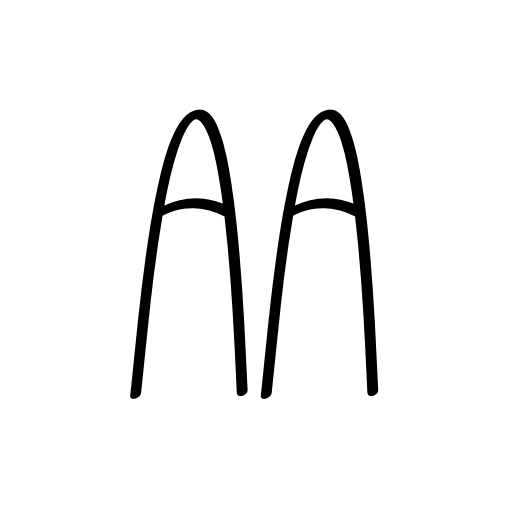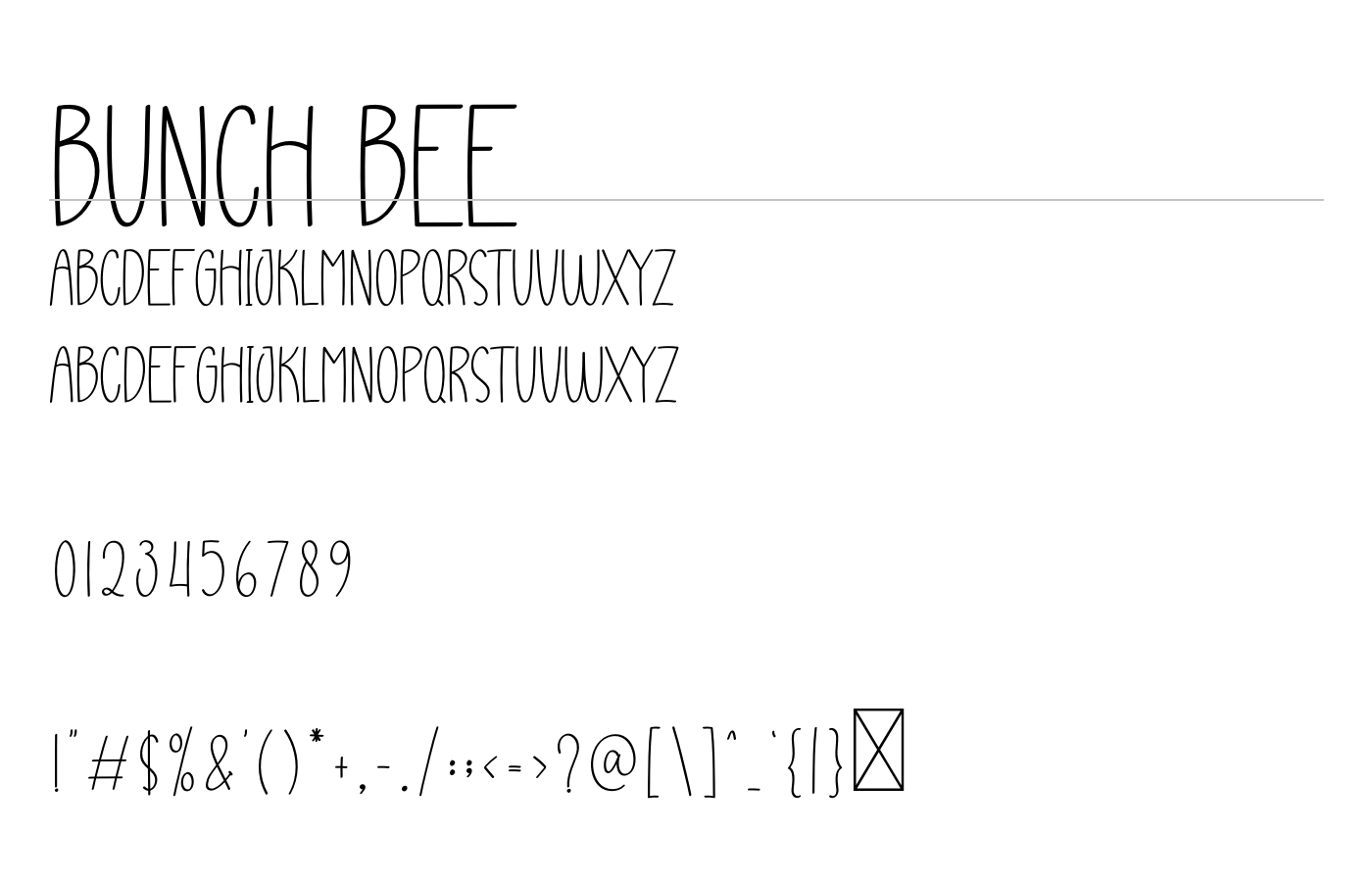
Bunch Bee is a slender, playful sans serif font featuring tall, narrow letterforms with uneven stroke widths that give it a hand-drawn, casual feel. Its quirky and elongated shapes make it ideal for informal, creative designs like kids' materials, posters, and friendly branding, bringing a touch of whimsy and charm without sacrificing readability. This font adds a lighthearted and approachable personality to any project that seeks a fun and unique style.
Bunch Bee Font